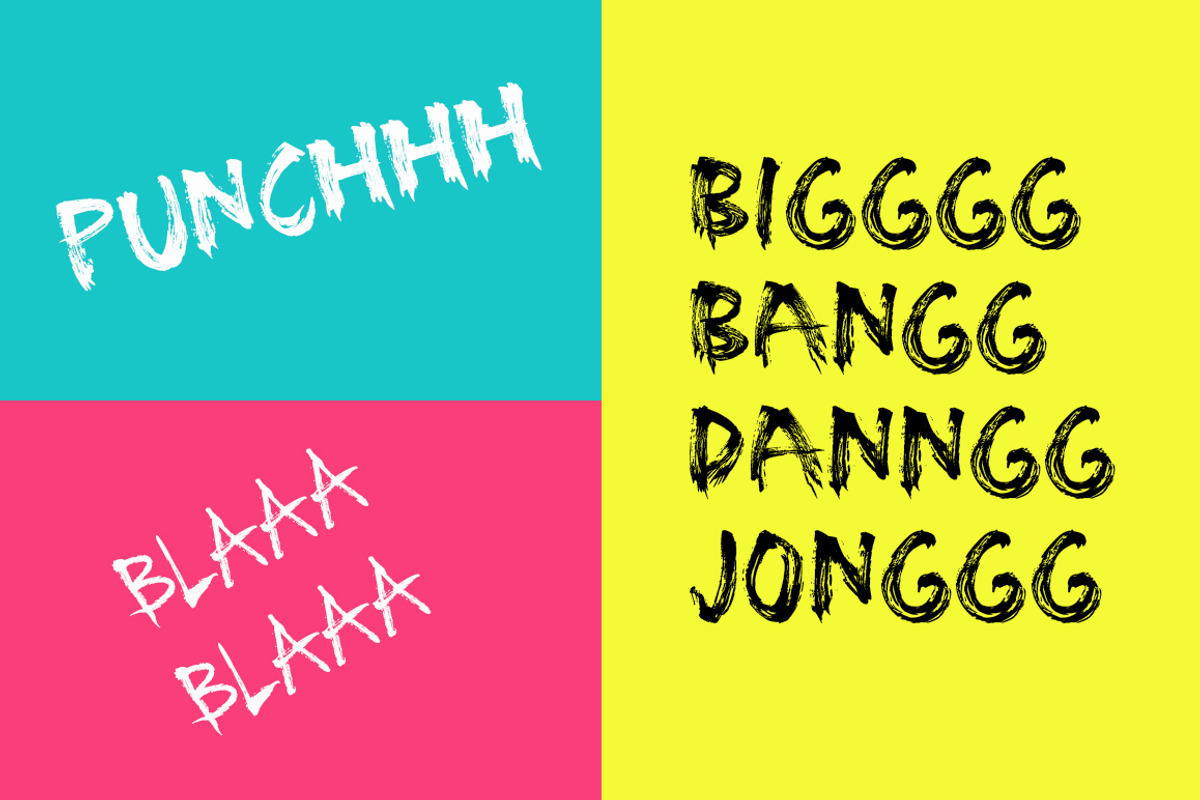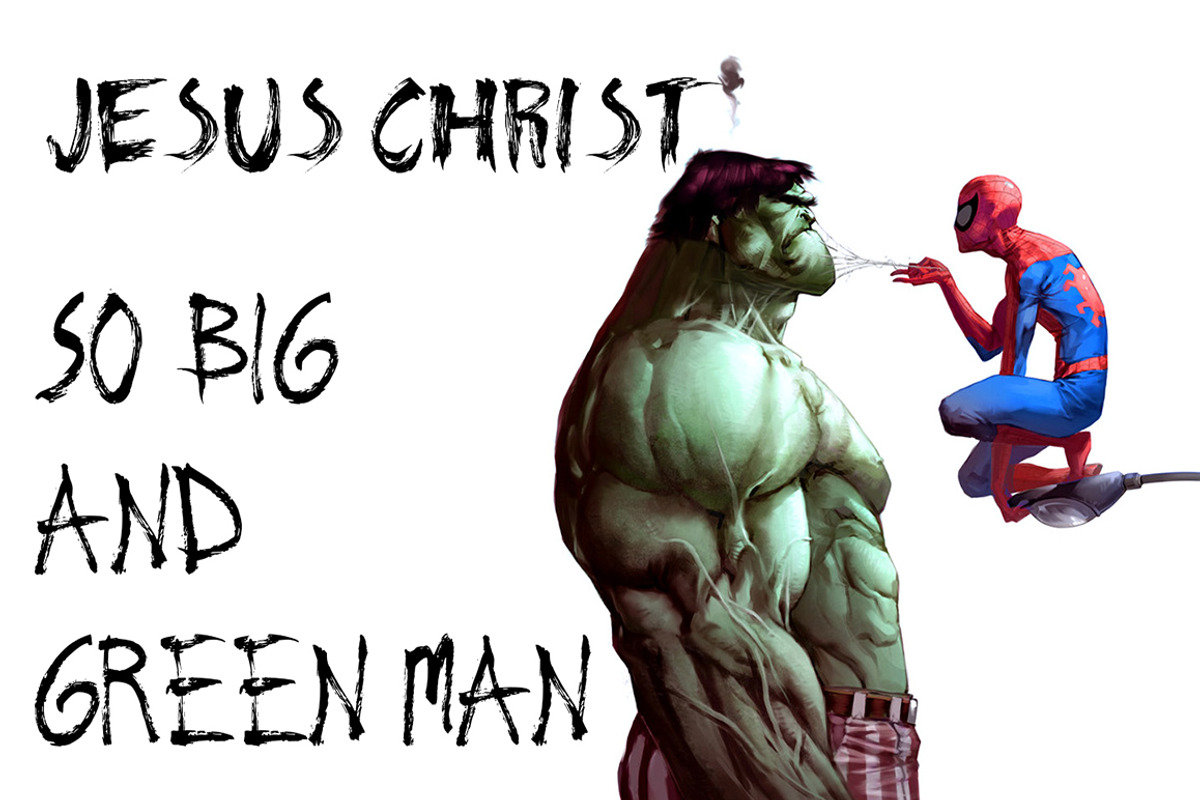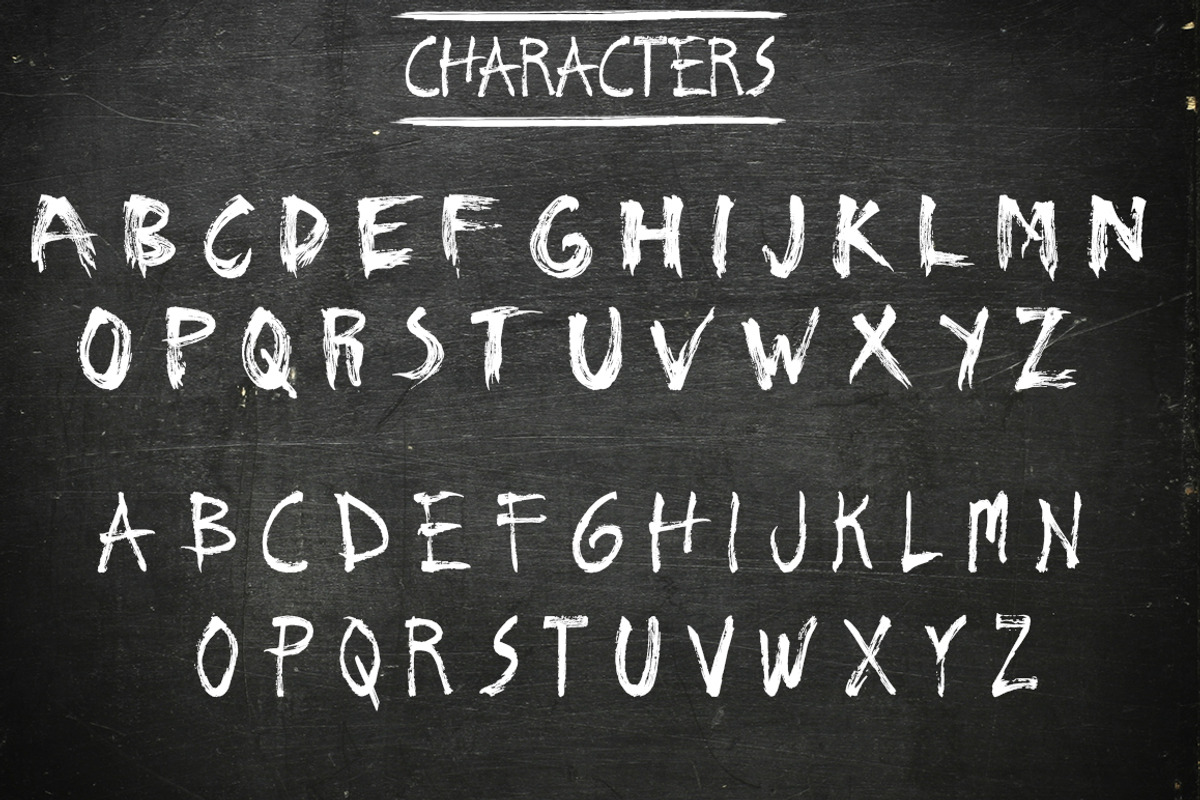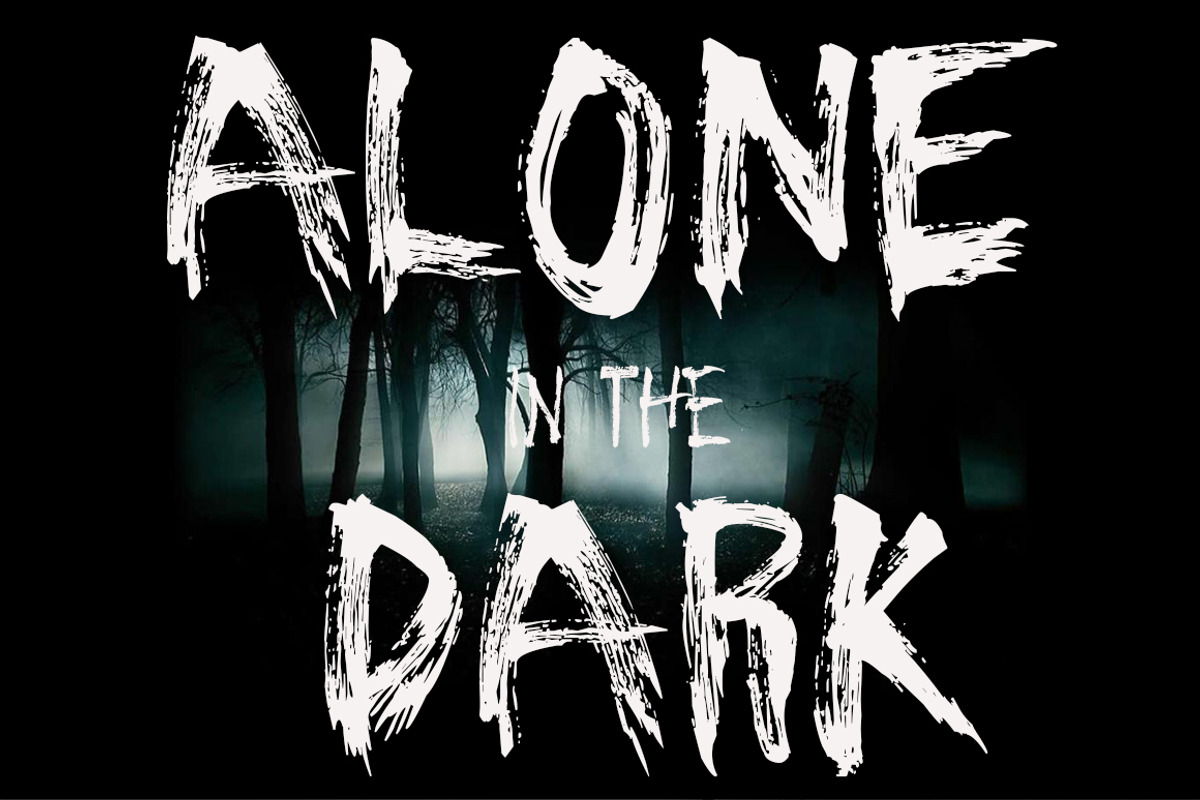
Natural 2 Fonts
Natural 2 Fonts by OnlyTheOriginaLs is a font selected for branding, posters, packaging, typography.
Why Natural 2 Fonts is worth a look
Natural 2 Fonts by OnlyTheOriginaLs fits naturally into Branding, posters, packaging, typography.